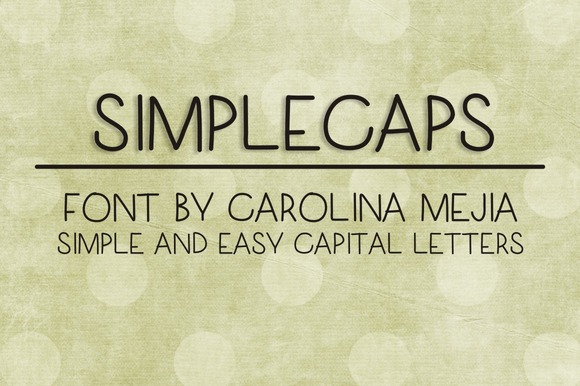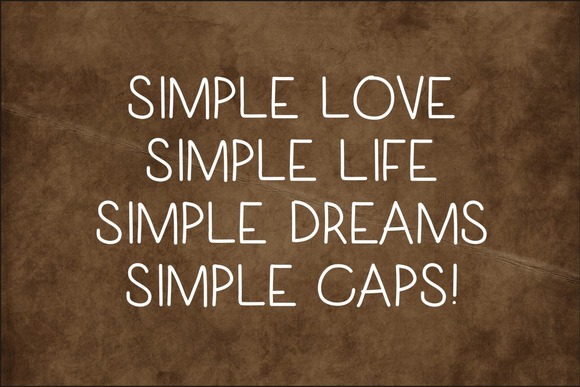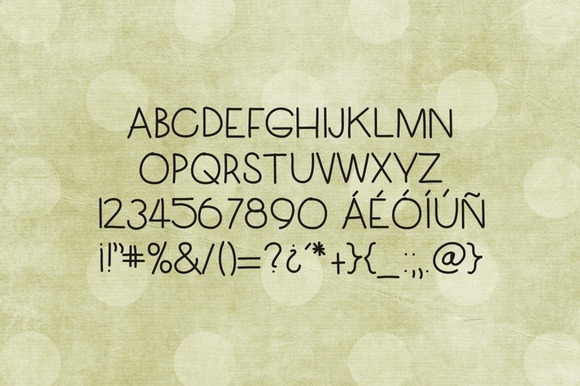
Introduction to Simplecaps Font
As a designer, you know that sometimes the simplest ideas are the most powerful. You’re working on a creative project, and you need a font that will make your message stand out. You’re browsing through your design resource library, searching for the perfect font to match your vision. And then, you stumble upon it – the Simplecaps Font. This high-quality font is a game-changer for designers who want to add a touch of elegance to their work.
| 👤 Author | Carolina Mejia |
What sets Simplecaps Font apart is its unique design. With all characters and numbers in capitals, this font is perfect for creating a clean and modern look. Plus, with a transparent background, you can easily layer it over other design elements to create a stunning visual effect.
Key Features of Simplecaps Font
- Unique, modern design with a transparent background for seamless integration
- Resolution-independent design ensures crisp text at any size or resolution
- Perfect for digital and print projects, including logos, branding, and typography
Honest Review: Simplecaps Font
As a designer, I’m always on the lookout for high-quality design resources to elevate my creative projects. I recently came across the Simplecaps Font, and I’m excited to share my honest review.
What works well: ✨ The Simplecaps Font has a clean and modern aesthetic that’s perfect for a variety of design applications. The transparent background allows for seamless integration into any design project, and the free download option is a major plus.
- Perfect for logos, icons, and graphics
- Works well in digital and print media
- Highly versatile and customizable
However, there are a few limitations: ⚠️ The font library is relatively small, and the character set could be expanded. Additionally, the font may not be suitable for complex, multi-line text applications.
Overall impression: I’m impressed with the Simplecaps Font’s potential as a design resource. While it may not be the most comprehensive font library, its clean design and transparent background make it a great choice for creative projects. I’d definitely consider using it again in the future.
Tips for Getting the Most Out of Simplecaps Font
Use the Simplecaps Font in combination with other design elements to create visually appealing graphics and designs. Experiment with different font sizes and styles to achieve the desired effect. Also, make sure to use the font on a high-quality image or background to get the best results.
The Simplecaps Font is ideal for creative projects that require a clean and modern look. Use it to create graphics, logos, and other design elements that require a high level of professionalism and sophistication. The font is also great for presentations, documents, and other materials that require a transparent background.
Alternatives to Simplecaps Font
Open Sans is a high-quality sans-serif font suitable for various design projects, including creative projects that require a clean and modern look. It’s available for free download and features a transparent background, making it ideal for backgrounds and overlays. When to use: Use Open Sans for designs that require a neutral yet stylish font.
Comparison to Simplecaps Font: While Open Sans has a more modern and sleek design, it lacks the distinctive capital letters of Simplecaps Font. However, Open Sans is more versatile and suitable for body text.